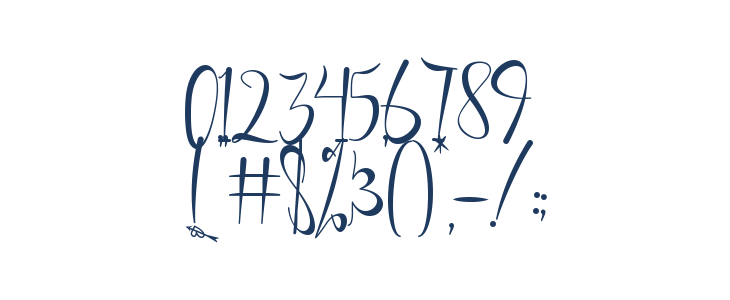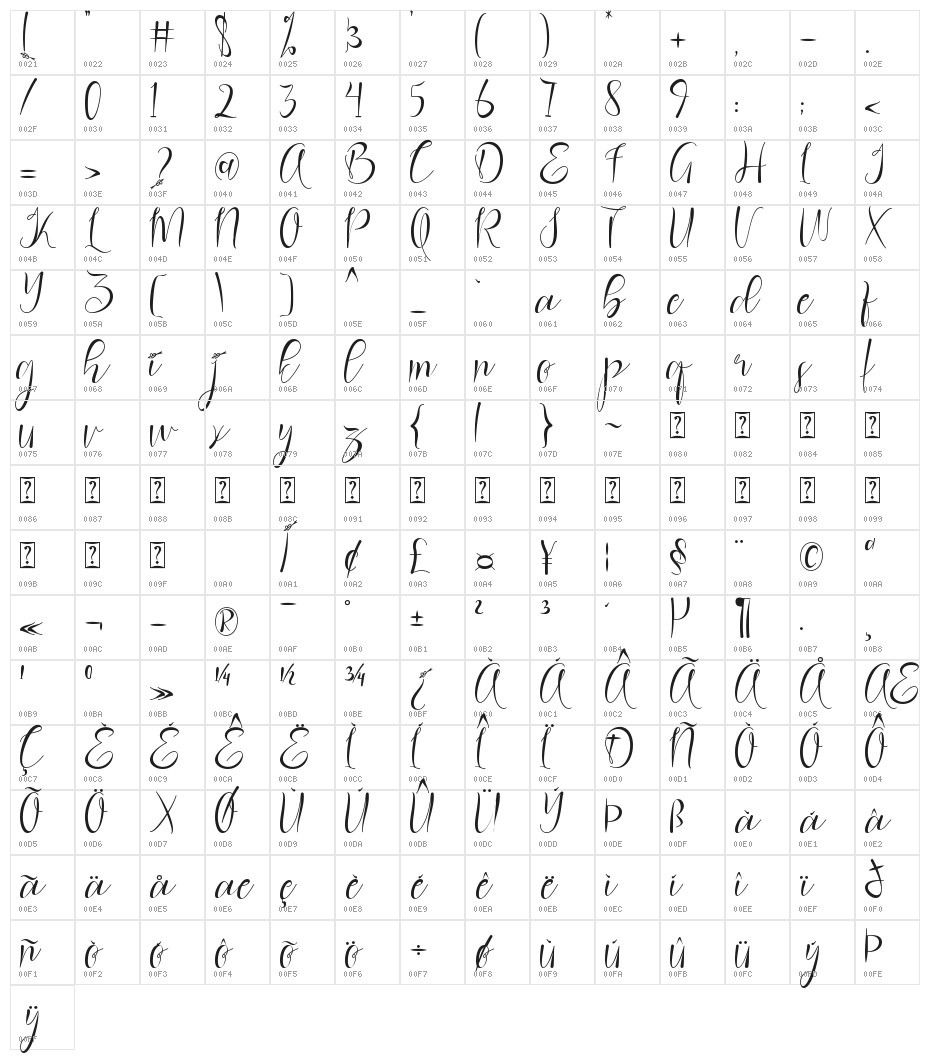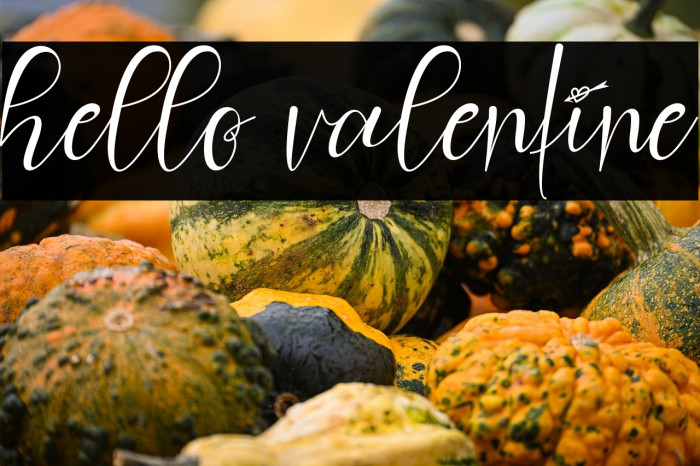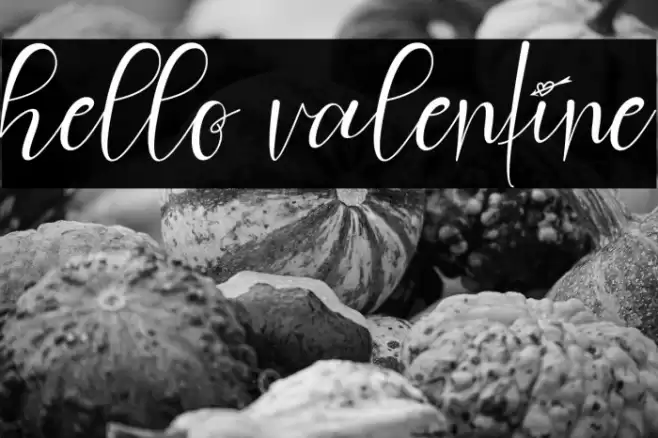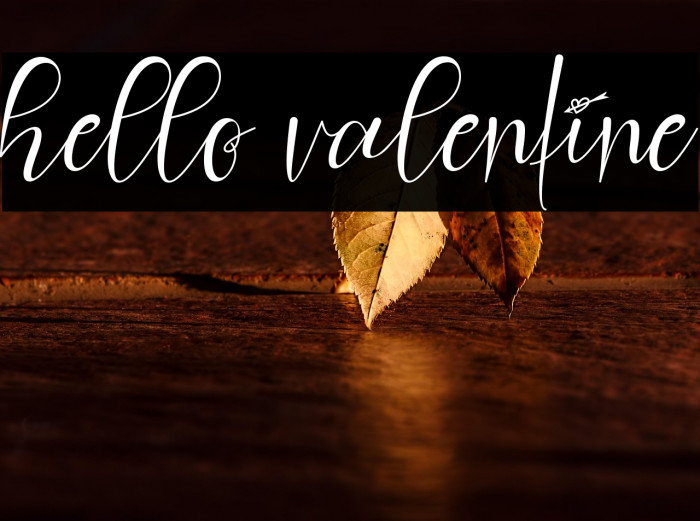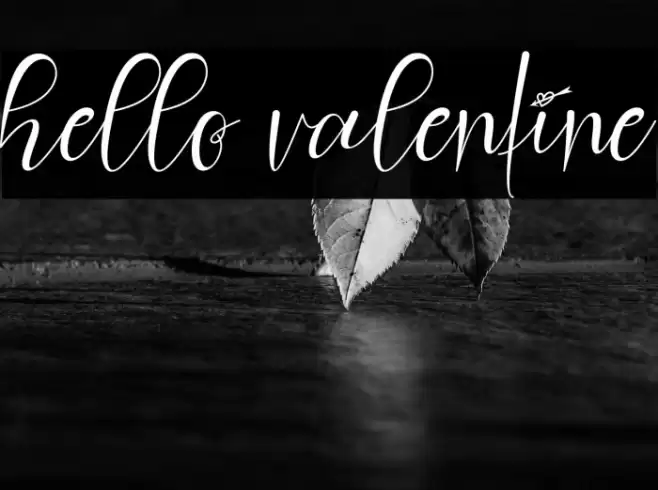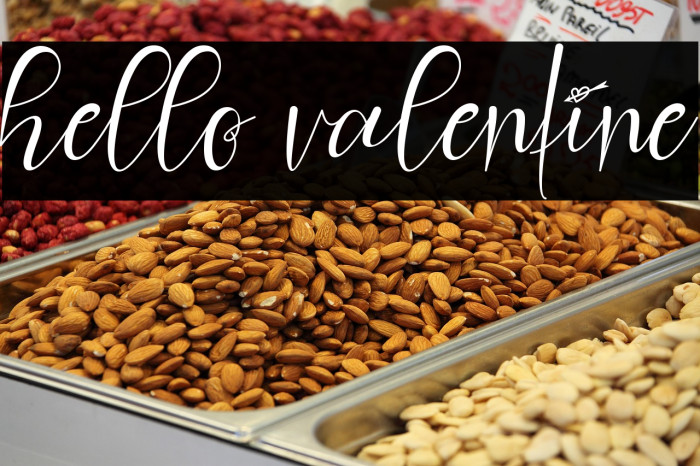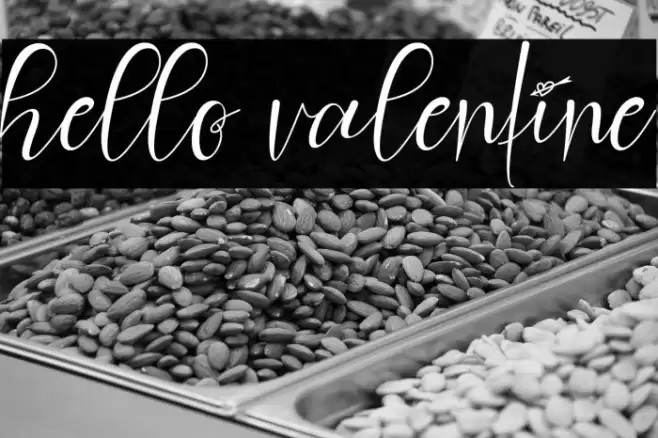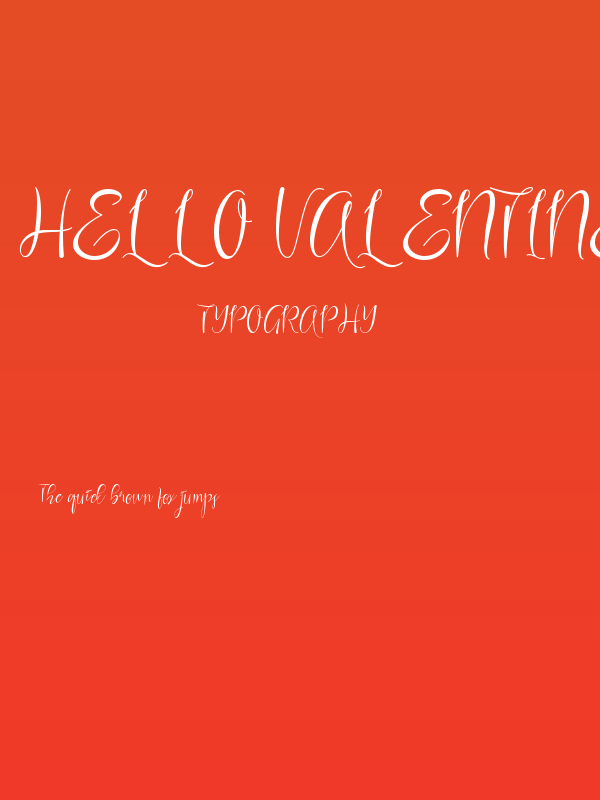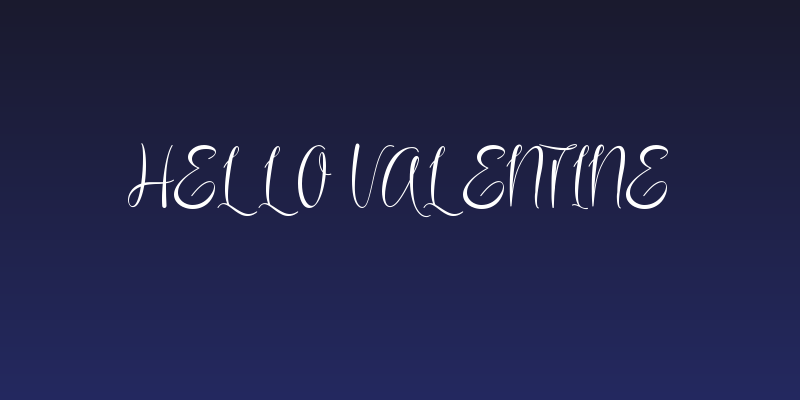
hello valentine Font
hello valentine Description
This font exudes a romantic and whimsical charm, characterized by its flowing, cursive style. The letters are elegantly connected, with a playful yet sophisticated flair. The uppercase letters are tall and slender, while the lowercase letters are more rounded and feature unique embellishments, such as heart motifs on certain characters. The numbers and special characters maintain the same fluidity, adding to the cohesive look of the font. The overall design is perfect for creating a sense of elegance and romance, making it ideal for invitations, greeting cards, and other creative projects that require a personal touch.
| Overall Style | Romantic |
| Use Case | Headlines, Invitations, Greeting Cards |
| Proposed Projects | Ideal for wedding invitations, greeting cards, love letters, and romantic-themed branding. |